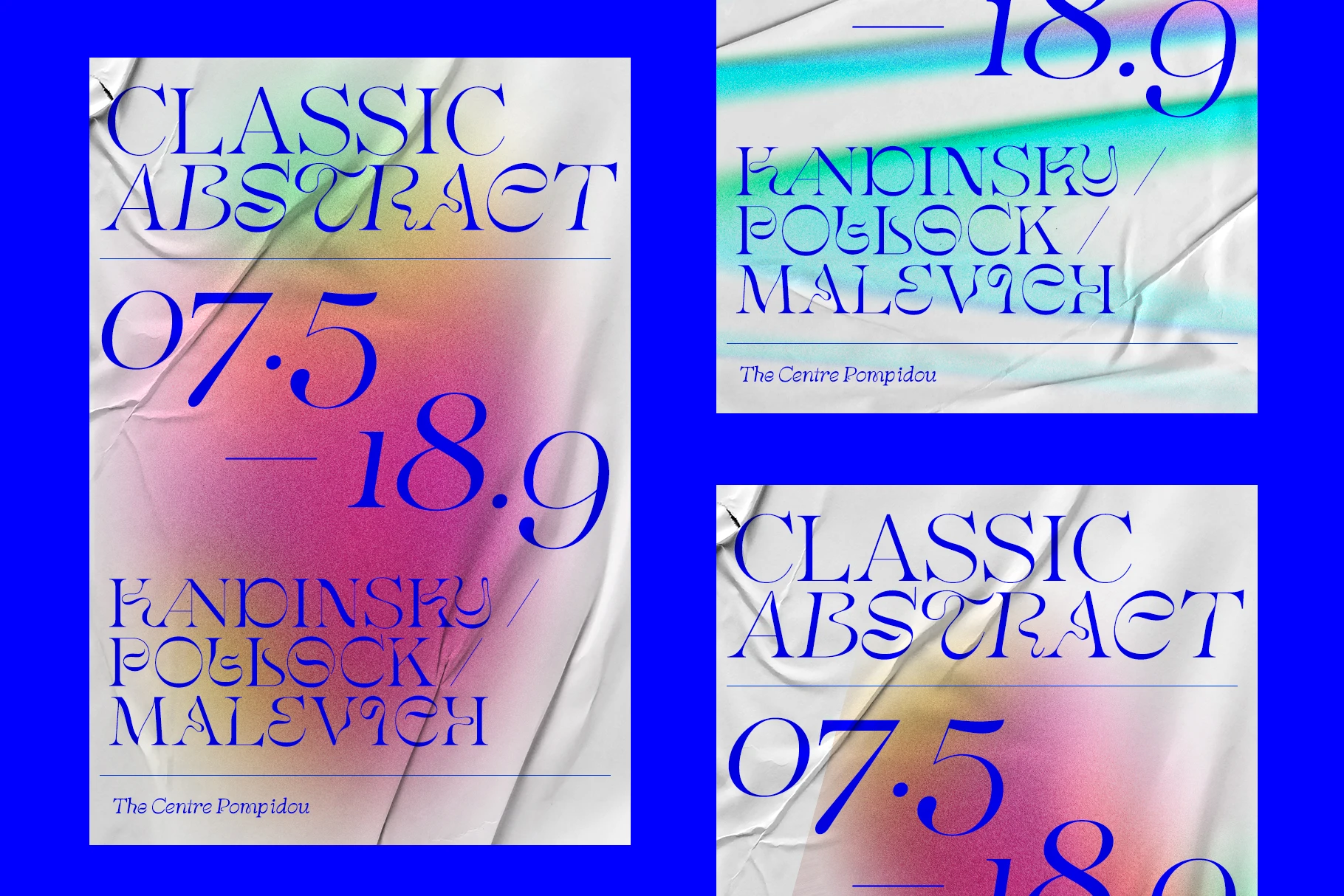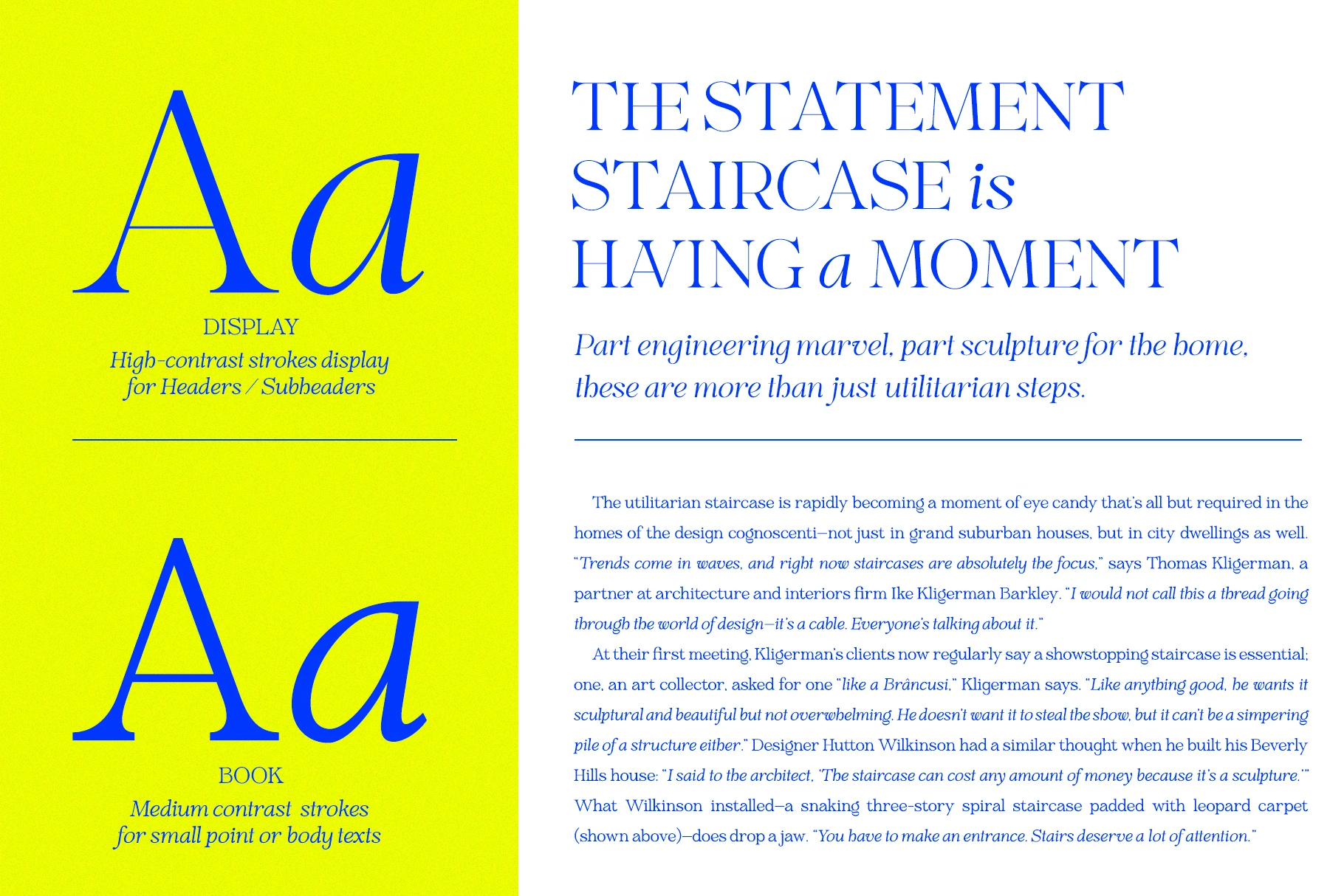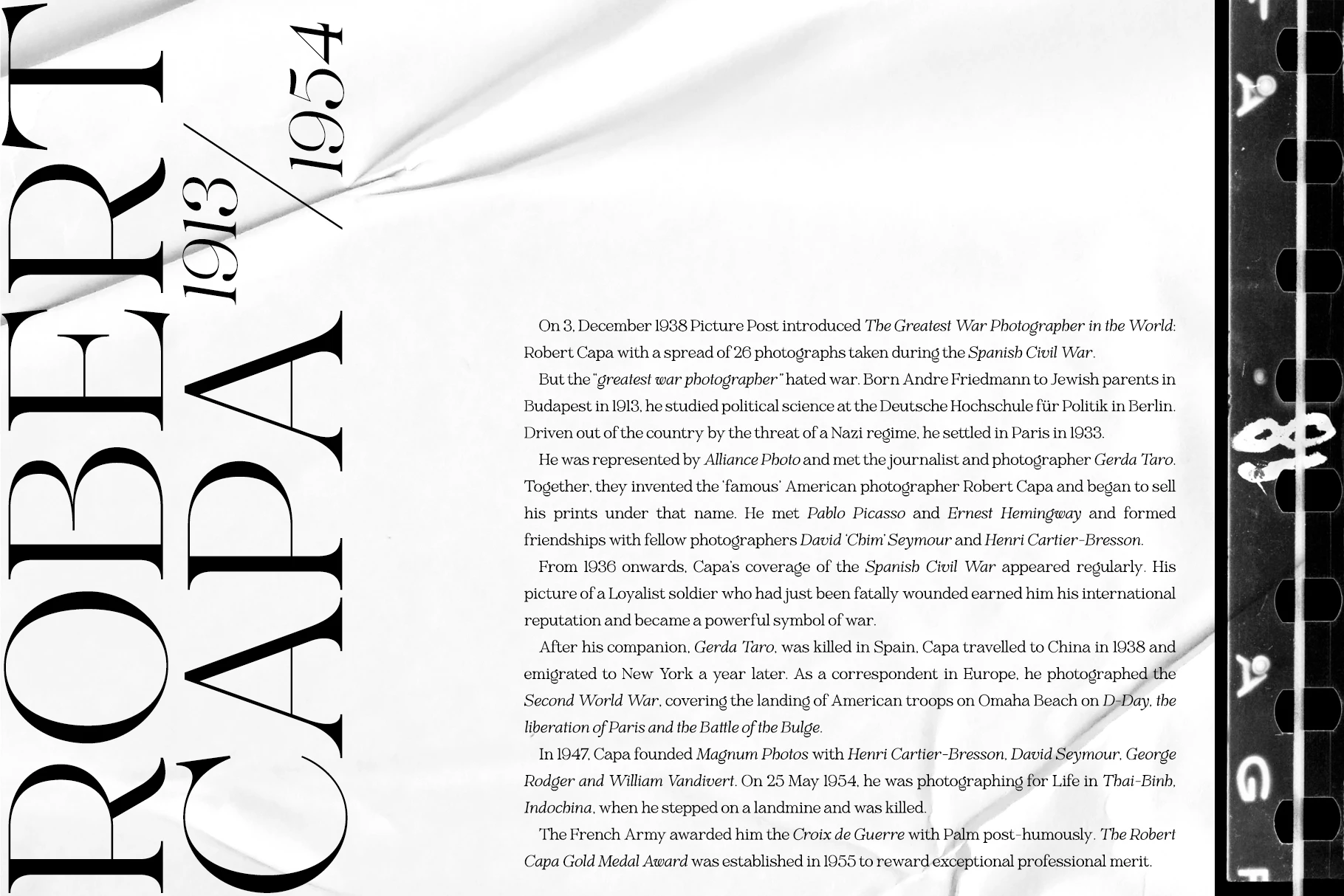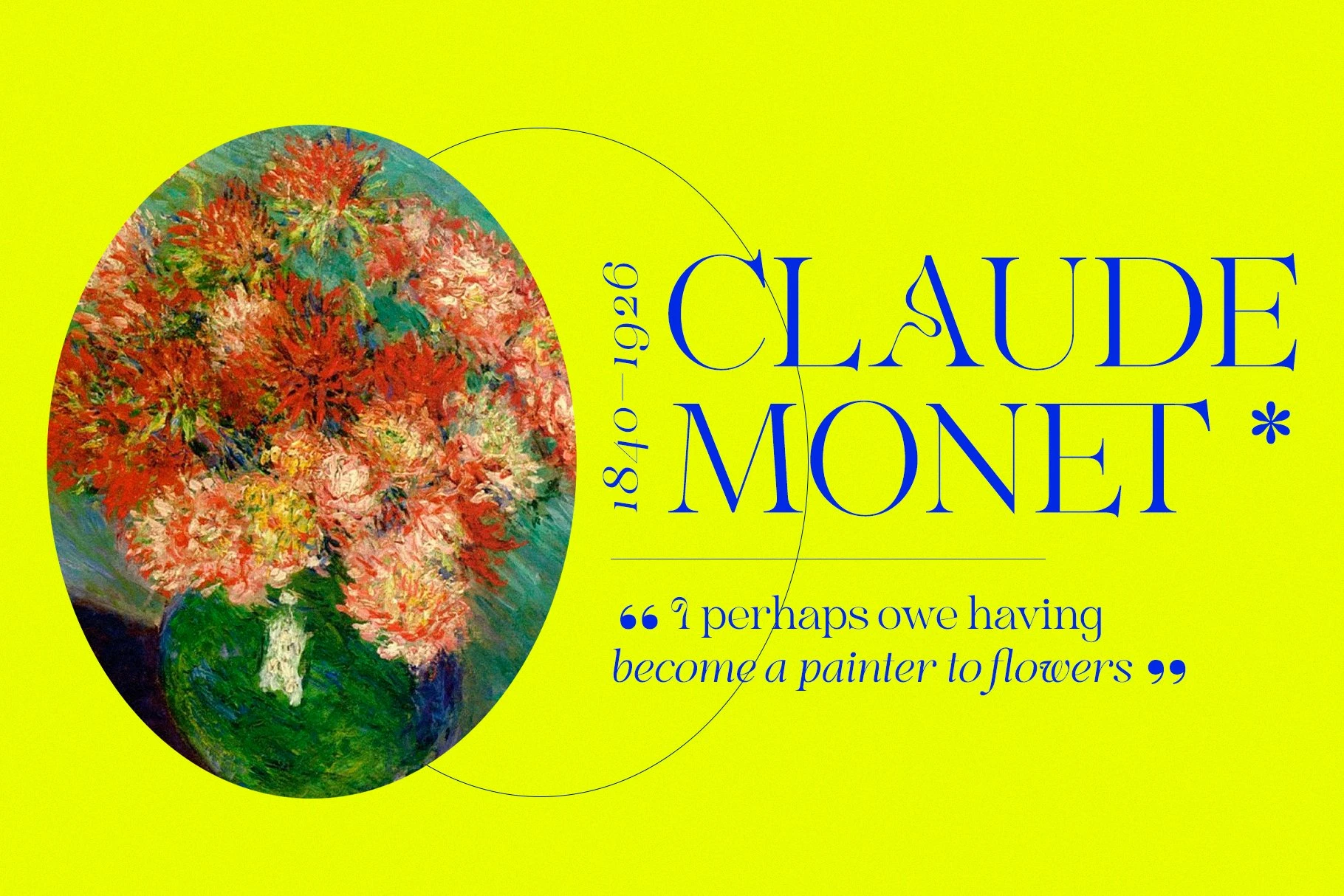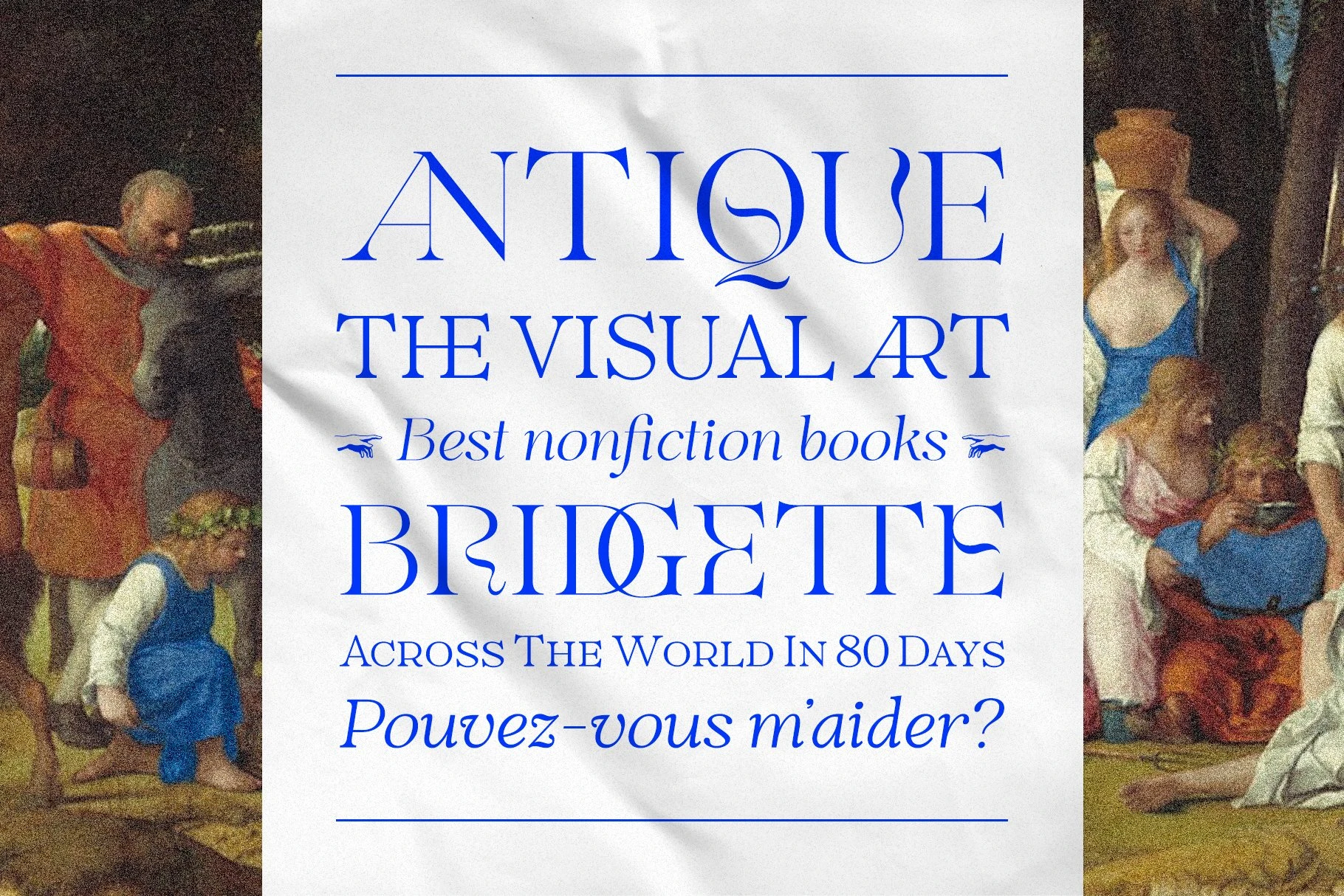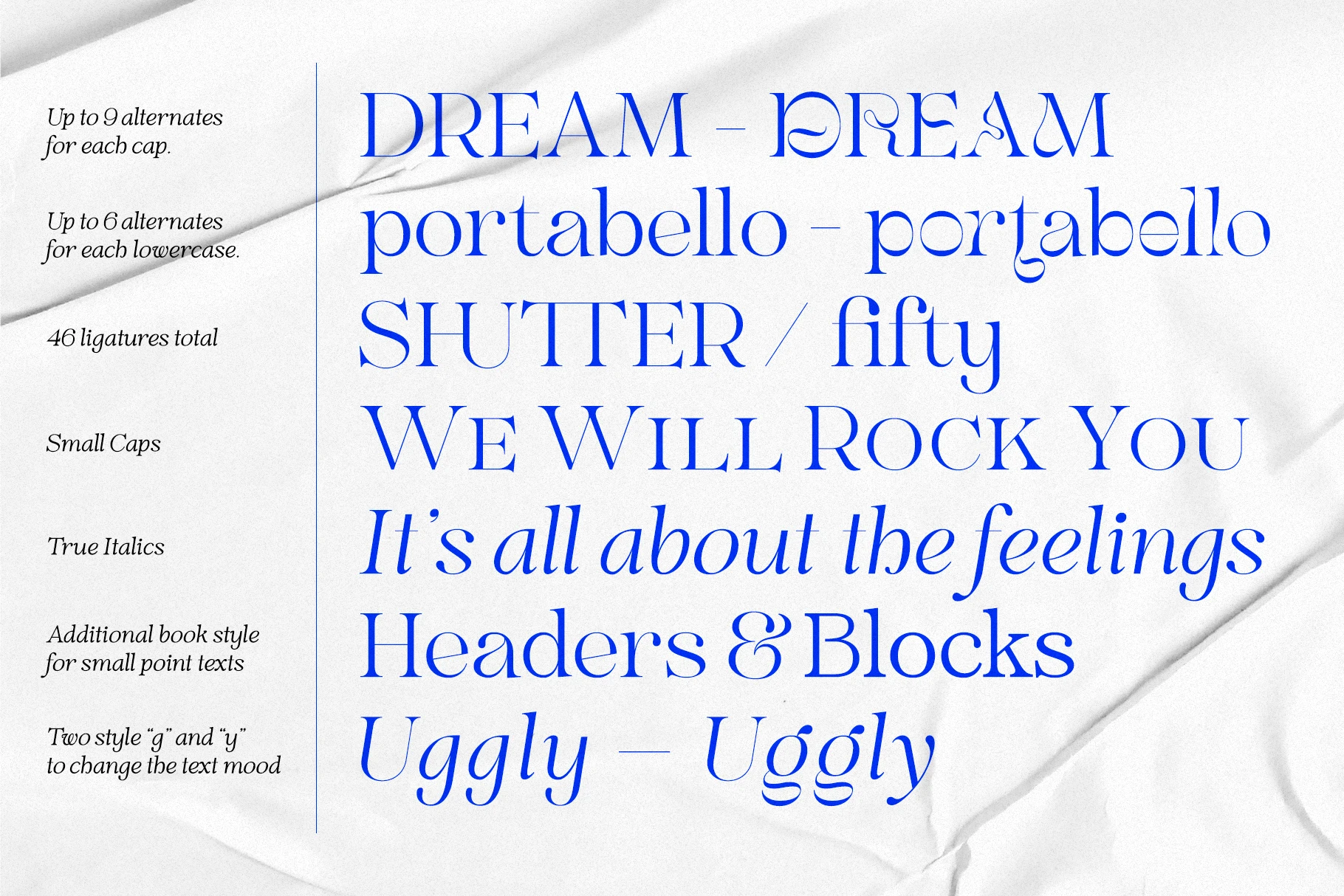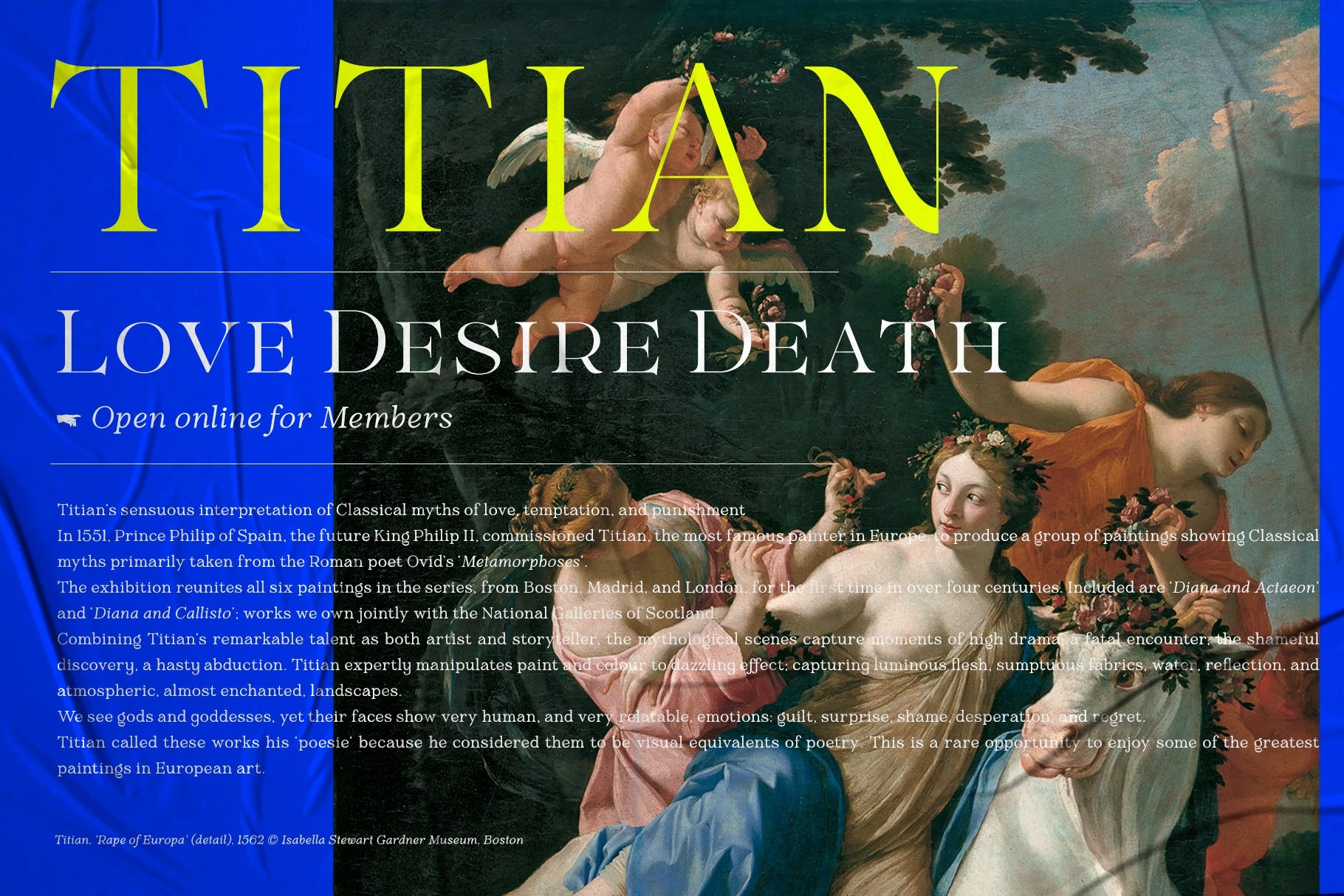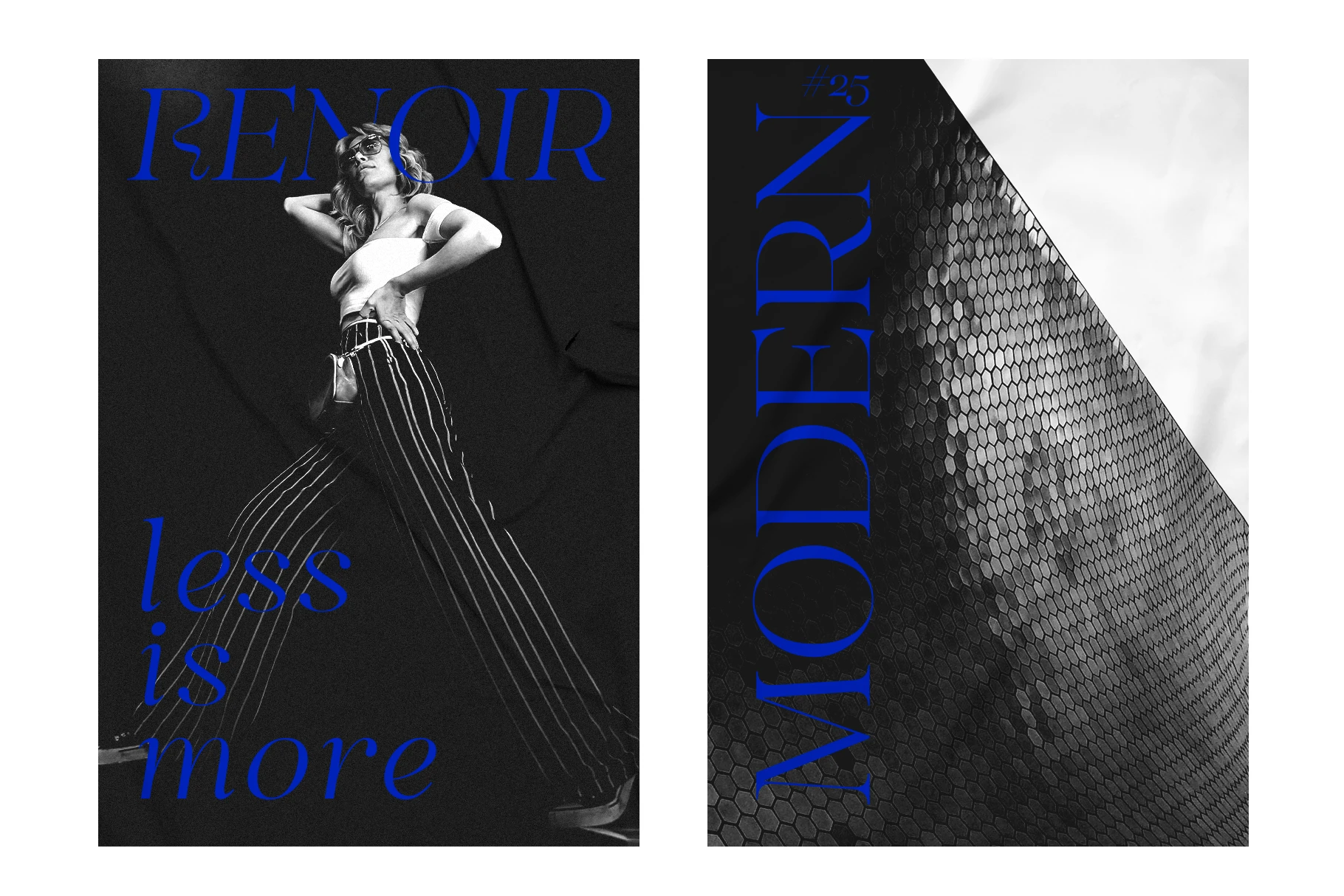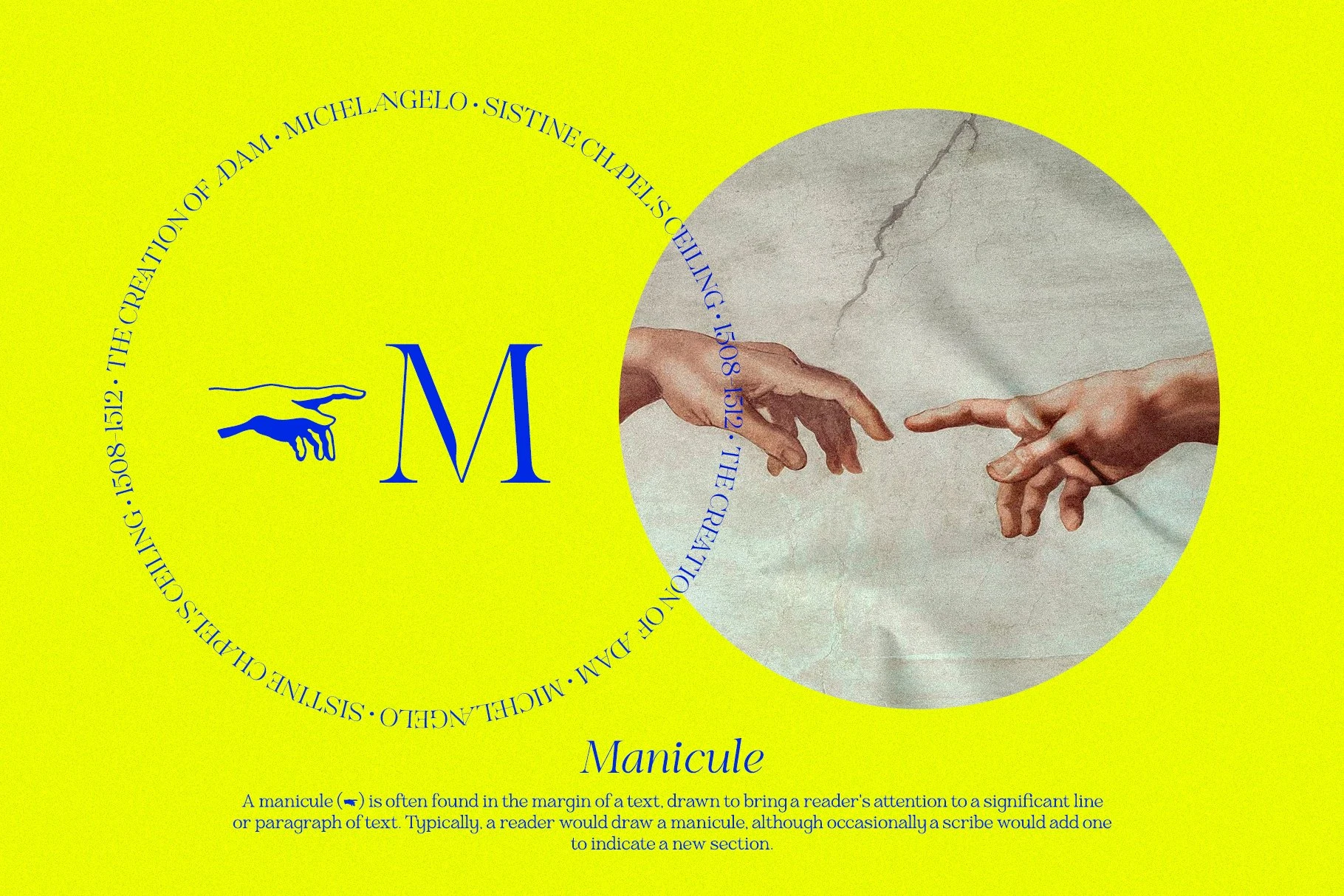
Nobleman Font Family
Nobleman is a classic serif typeface with a modern edge, designed for high visual impact and elegant readability. Features strong contrast between thick and thin strokes, giving it a stylish, contemporary feel. Includes four styles — Display, Display Italic, Book, and Book Italic — crafted for both headline use and longer body text.
Packed with OpenType features like alternates, ligatures, fractions, tabular figures, and small caps. Offers multiple stylistic variations, from clean and conservative to expressive and ornate. Ideal for magazines, logos, brochures, posters, websites, and digital content. Built for designers seeking both sophistication and versatility in their typography.
• Chinese Pinyin
• Common Ligatures
• Fractions
• Lining Numerals
• Old Style Numerals
• Ordinal Numerals
• Proportional Numerals
• Small Capitals
• Small Capitals for Capitals
• Stylistic Alternates
• Stylistic Sets
• Superscript
• Tabular Numerals